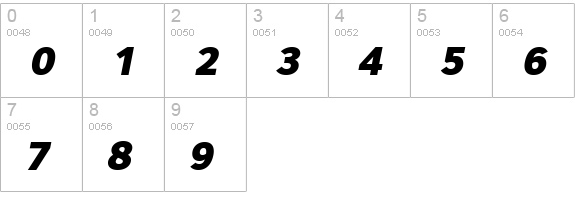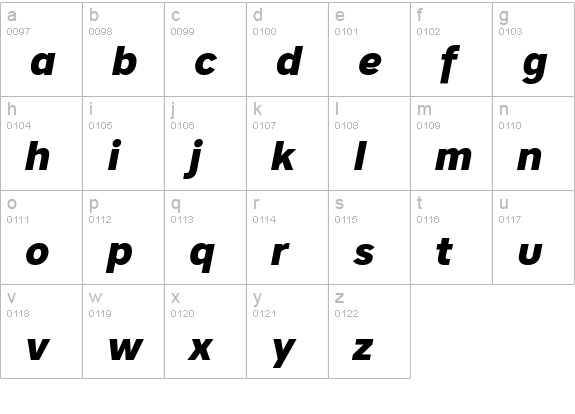
Core Sans A 75 ExtraBold Italic is an extra-heavy, attention-grabbing, italic variant in the Core typeface family \xE2\x80\x94 well suited to high-impact headlines, posters, and bold branding.
Core Sans A 75 ExtraBold Italic is a striking and modern typeface that exudes confidence and strength. Its bold and italicized design adds a touch of sophistication to any design project. This font is perfect for making a statement and commanding attention. With its clean lines and sleek curves, Core Sans A 75 ExtraBold Italic is versatile and can be used for a variety of purposes, from headlines to branding to packaging. What's even better is that Core Sans A 75 ExtraBold Italic is available for free download at FontsMarket.com. This means you can easily access this powerful font and use it in your projects without any cost. Don't miss out on the opportunity to elevate your designs with this impressive typeface. Download Core Sans A 75 ExtraBold Italic today and make a bold statement with your typography.